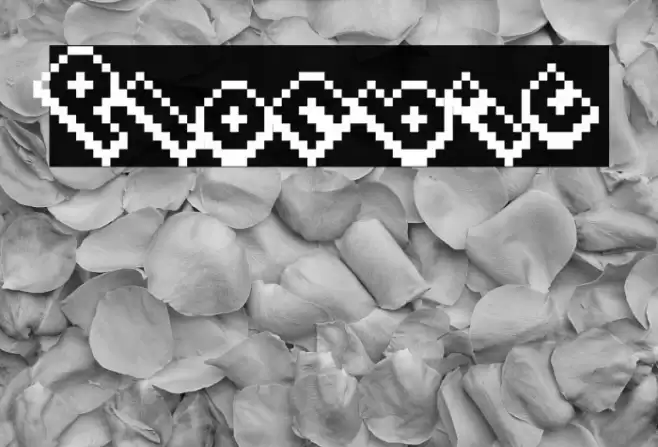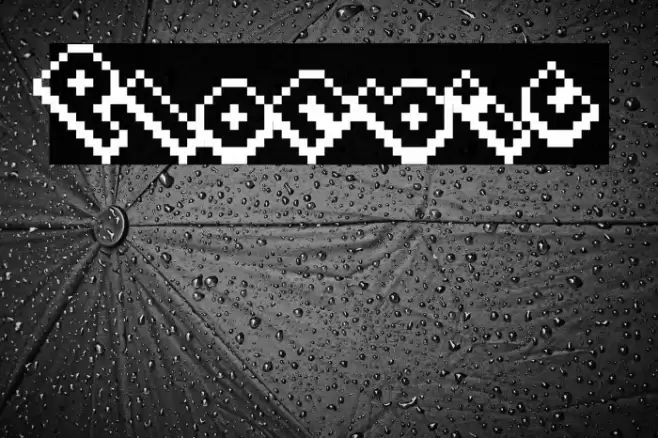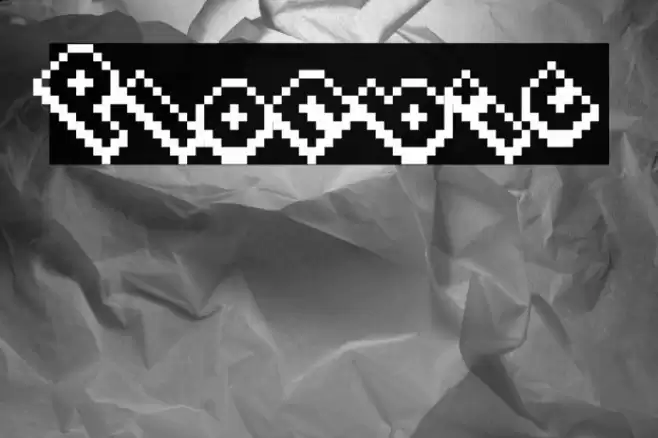
Plonbic Font
Plonbic Description
This font features a unique, pixelated design that resembles classic 8-bit video game graphics. Each character is composed of small, square pixels, creating a blocky and retro appearance. The letters and numbers are bold and distinct, with a consistent height and width that enhances readability despite the unconventional style. The special characters maintain the same pixelated theme, adding a playful and nostalgic touch to the overall design. This font is perfect for projects that aim to evoke a sense of nostalgia or pay homage to the early days of digital graphics.
A pixelated, retro-style font reminiscent of classic 8-bit video games from Uncategorized fonts.
- Proposed Projects: Ideal for video game designs, retro-themed posters, digital art projects, and any creative work that seeks to capture a vintage digital aesthetic.
- Overall Style: Retro, Decorative